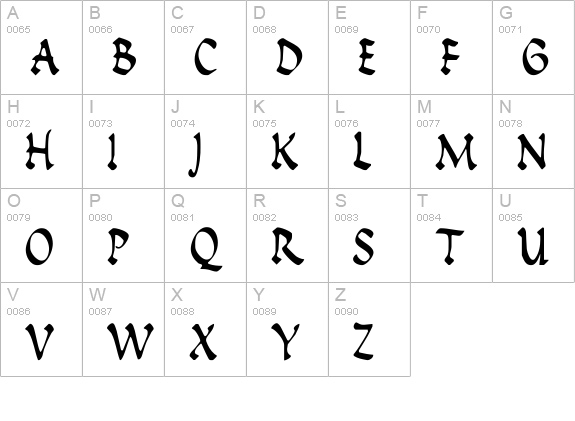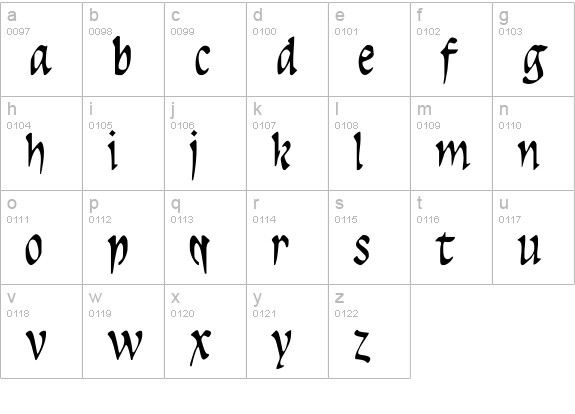
Insula Font Details
Introducing Insula, a stunningly elegant and versatile font that is sure to captivate and inspire. With its sleek lines and sophisticated curves, Insula effortlessly exudes a sense of modernity and refinement. This font is perfect for those seeking a contemporary yet timeless look. Whether used for logos, branding, or editorial design, Insula adds a touch of sophistication to any project. Its clean and legible letterforms make it ideal for both headlines and body text, ensuring a seamless reading experience. One of the most remarkable aspects of Insula is that it is completely free. Yes, you read that right! This extraordinary font can be freely downloaded at FontsMarket.com. We believe that creativity should never be limited by budget constraints, which is why we are excited to offer Insula as a complimentary resource to designers, students, and enthusiasts alike. By freely providing Insula, we hope to empower individuals and foster a community of creativity. We invite you to explore the endless possibilities that this font opens up, and embrace the power of design to make a lasting impact. Don't miss out on the opportunity to elevate your projects with Insula. Download this remarkable font today and let your creativity soar with FontsMarket.com.